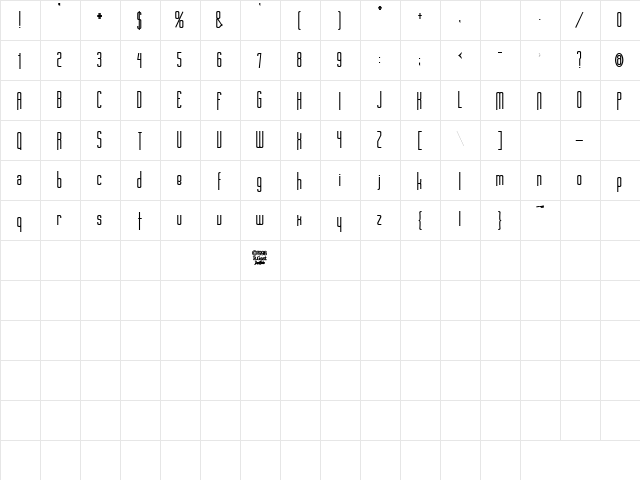
Long Cool Woman Bold Font Preview
Long Cool Woman Bold
Long Cool Woman Bold Font Details
Design Context for Long Cool Woman Typeface
Long Cool Woman offers clean, dependable letterforms without strong stylistic allegiance, making it a practical choice for designers who need flexibility. Its bold stroke weight gives it real presence on the page.